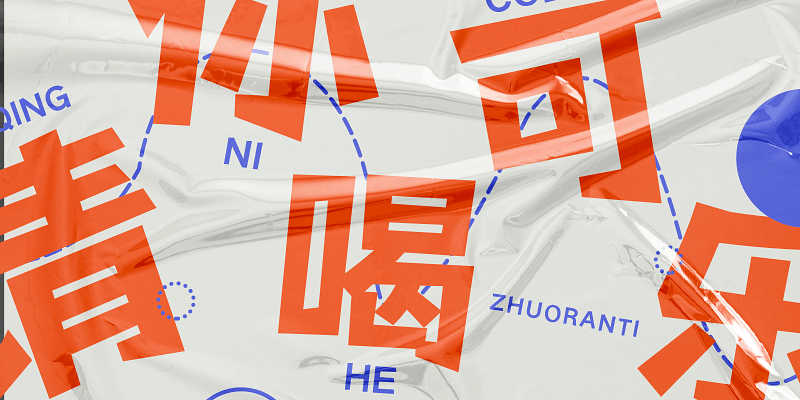
HelloFont ID Zhuo Ran Ti Font Free Download is a refined and elegant Chinese typeface designed with a minimalist, modern aesthetic. The name “Zhuo Ran” (卓然) evokes a sense of distinction and quiet confidence, which is beautifully reflected in the font’s clean lines, balanced structure, and contemporary styling. It’s an excellent choice for branding, editorial layouts, fashion lookbooks, product packaging, and any design project that requires a touch of sophistication.
HelloFont ID Zhuo Ran Ti Font Free Download features carefully sculpted strokes that feel both professional and human, offering a smooth reading experience across both simplified Chinese and Latin characters. It pairs exceptionally well with serif and sans-serif typefaces in bilingual layouts, and is particularly effective in premium or minimalist design systems.
Whether you're working on a luxury cosmetics label, a refined cultural publication, or a modern web design, this font provides a polished and stylish voice for your typography.
Clean, poised, and quietly powerful—HelloFont ID Zhuo Ran Ti brings a sense of modern elegance and composure to your type-driven work.